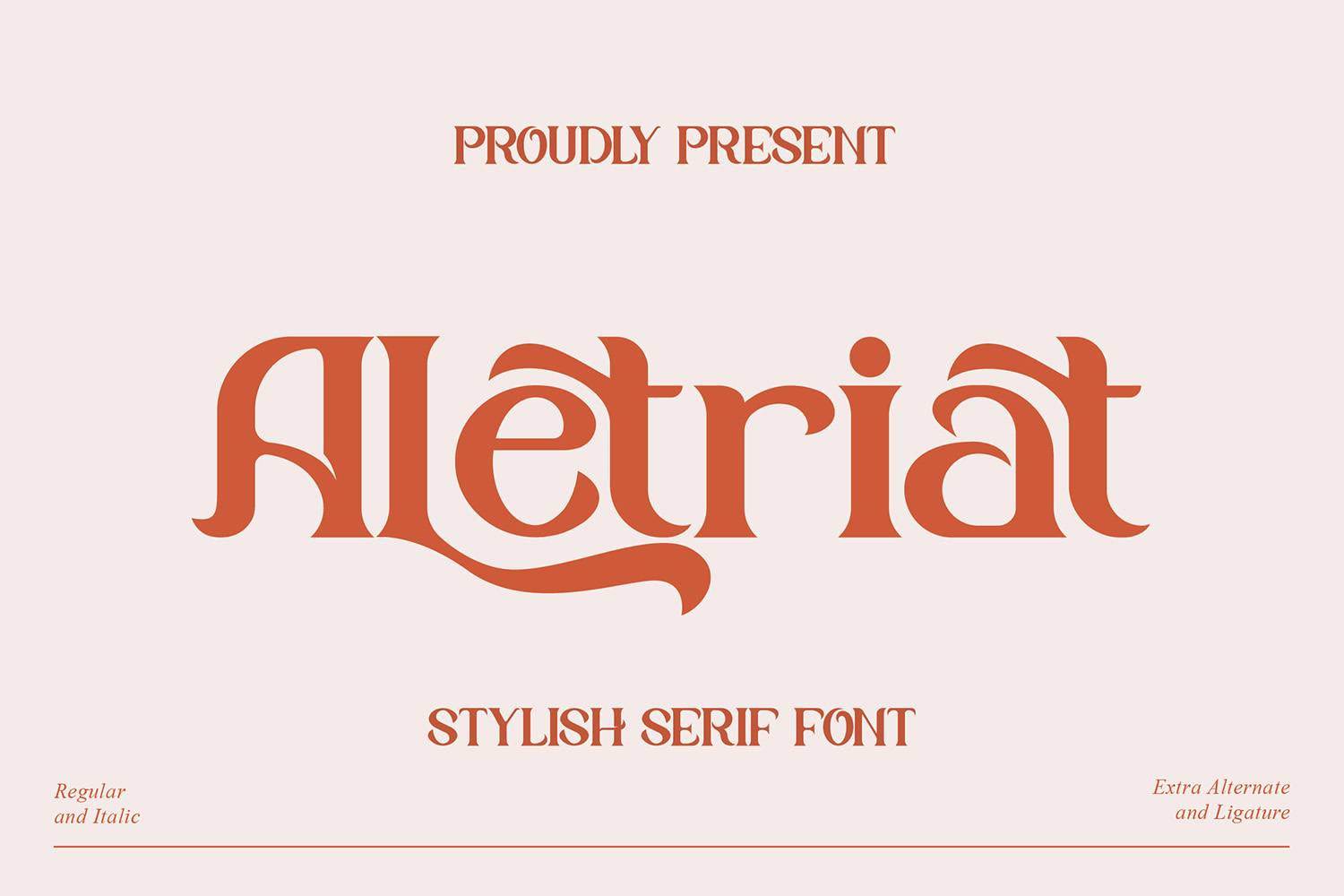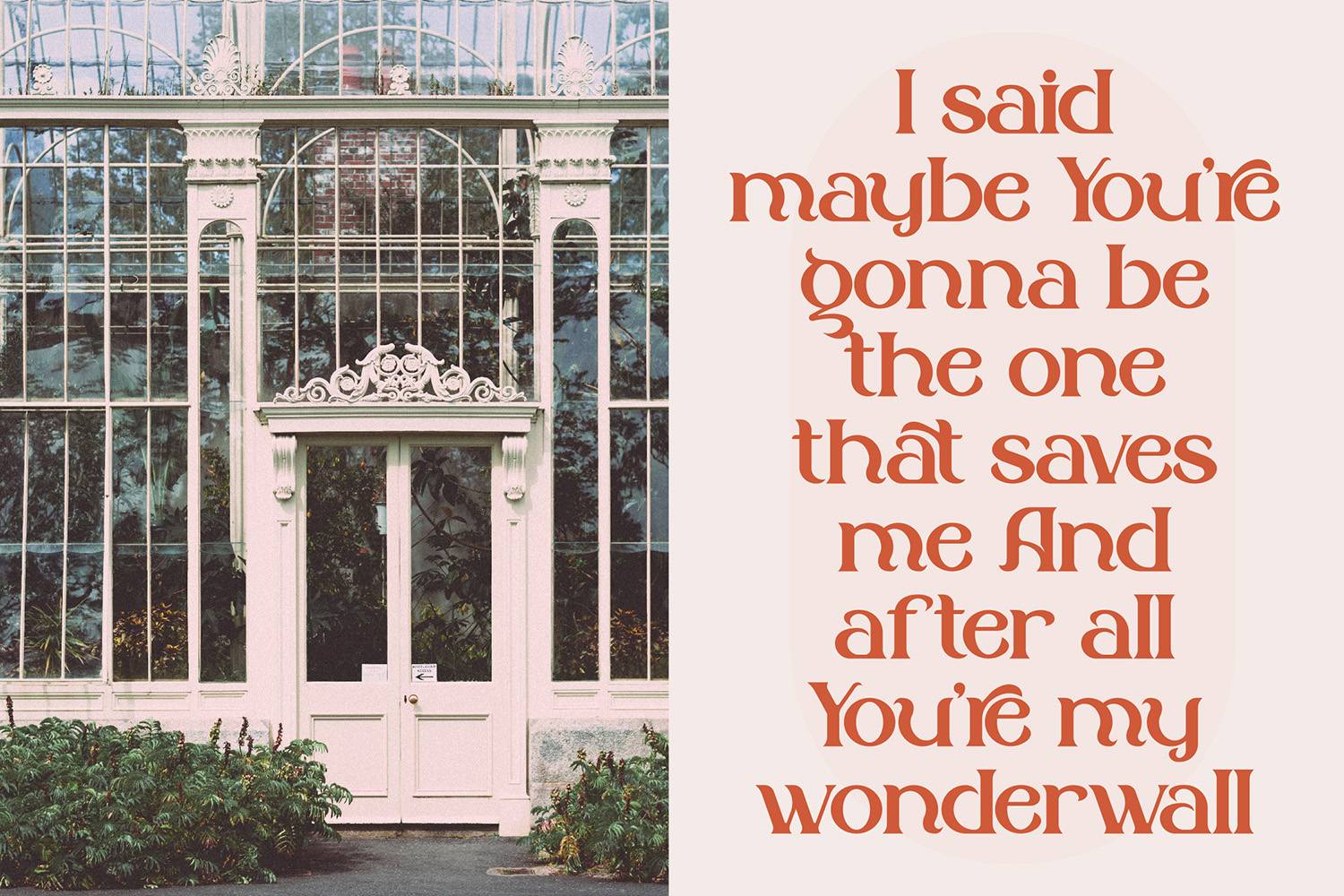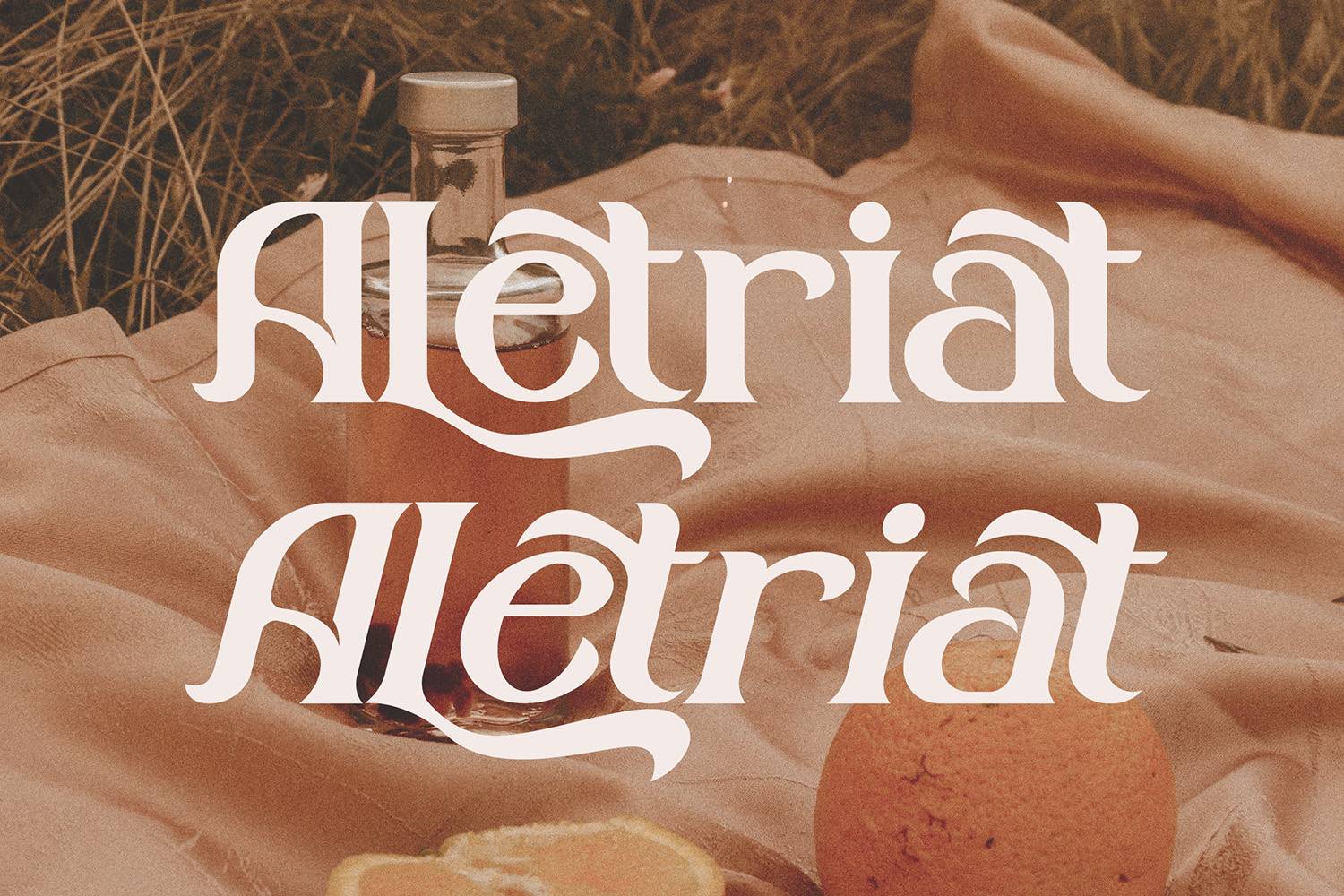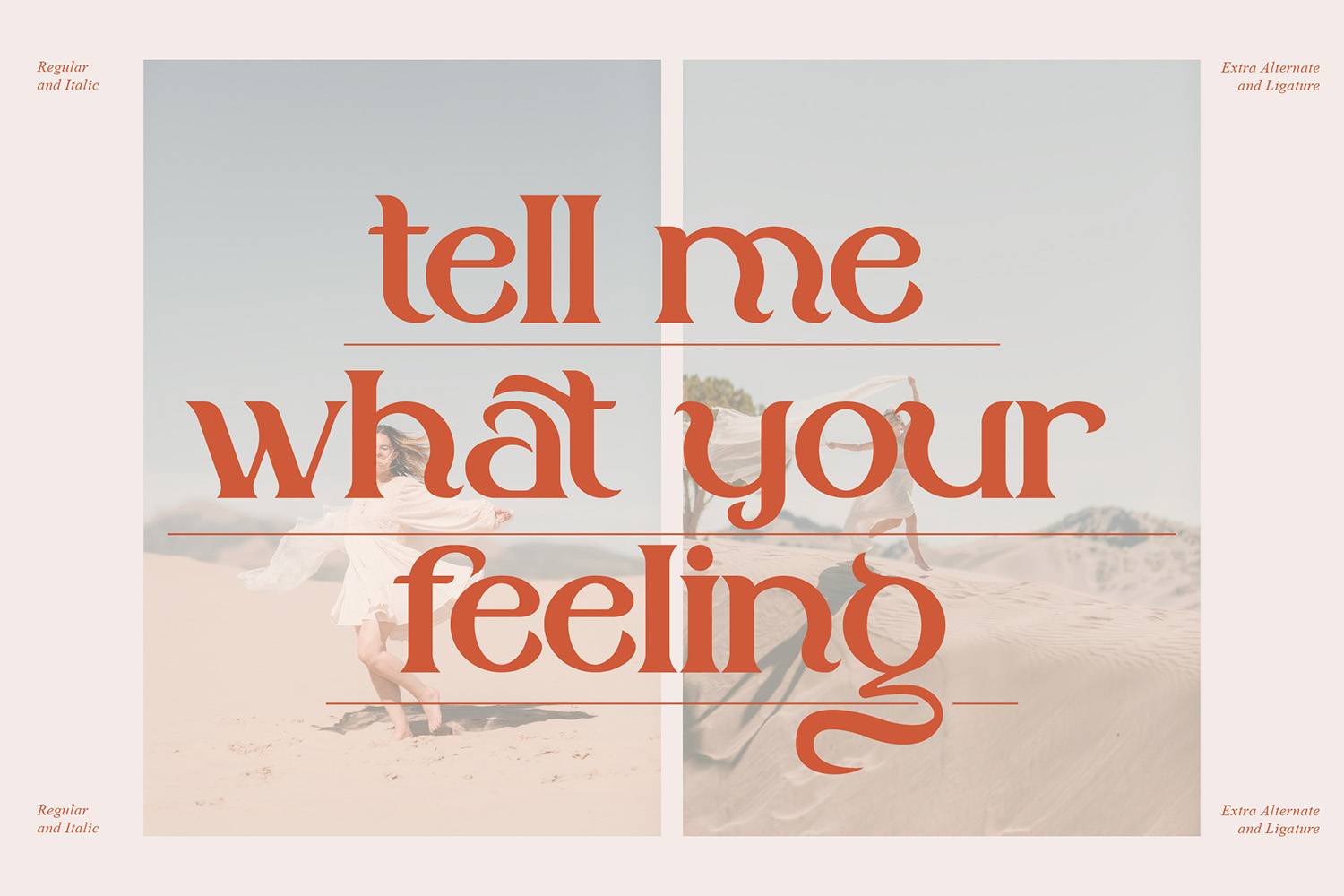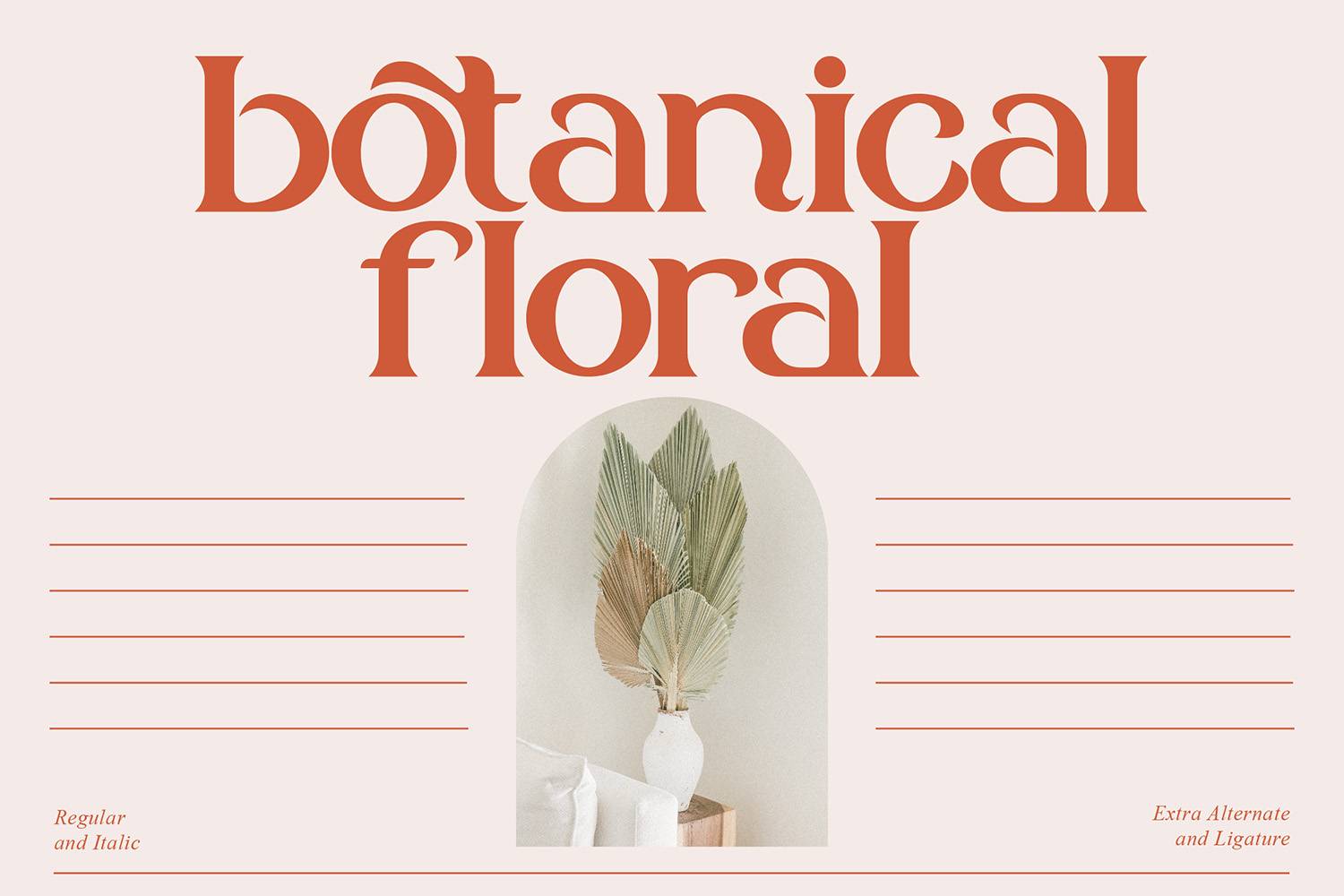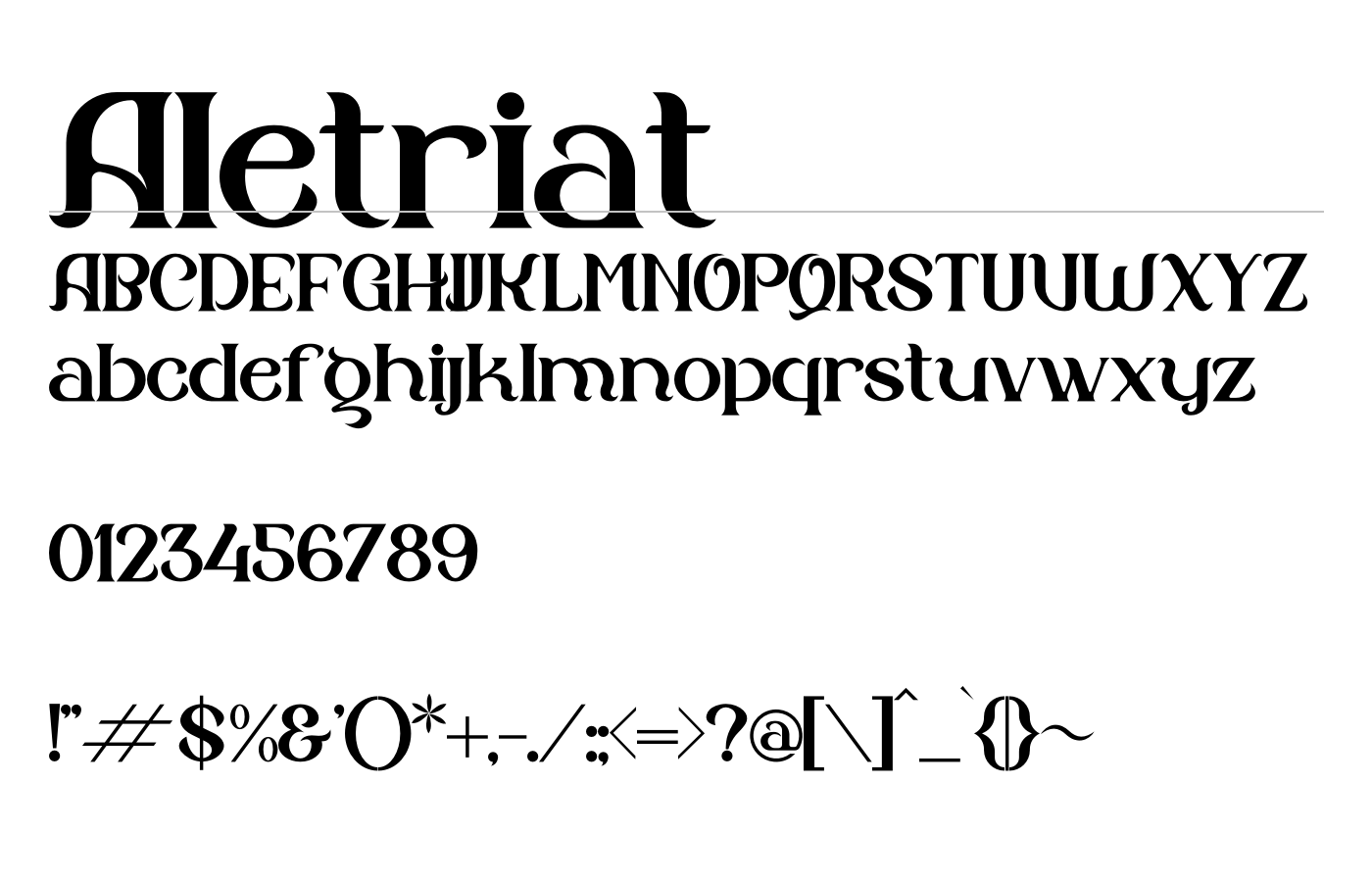
Aletriat is a distinctive serif font with strong Didone influences, featuring high contrast between thick and thin strokes and elegant, sharp serifs. Its unique letterforms, such as the stylized lowercase g and the curved tail on Q, give it an artistic and sophisticated character, perfect for luxury branding, editorial headlines, and creative logo design. This font balances vintage charm with modern flair, making it ideal for projects seeking a refined yet eye-catching typeface.
Aletriat Font
About Aletriat Font